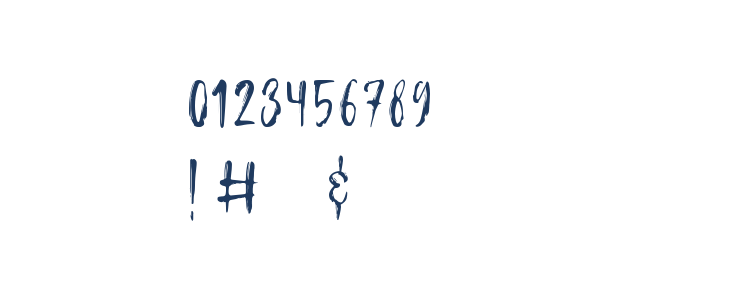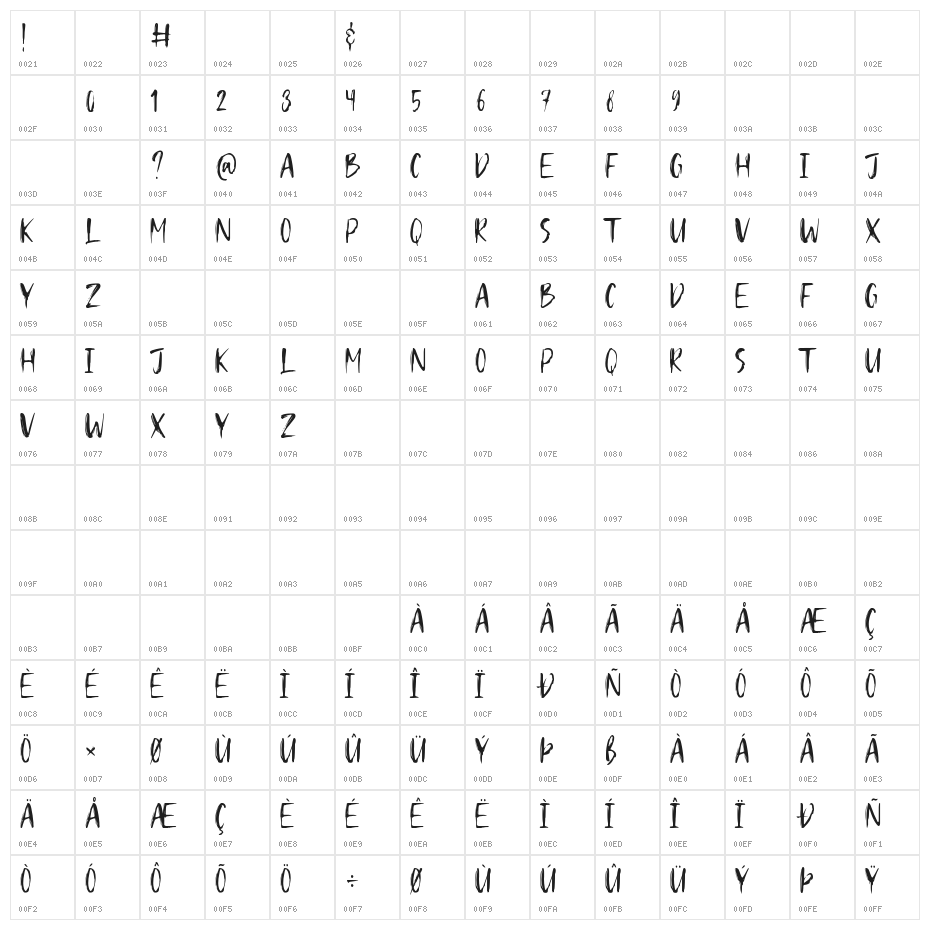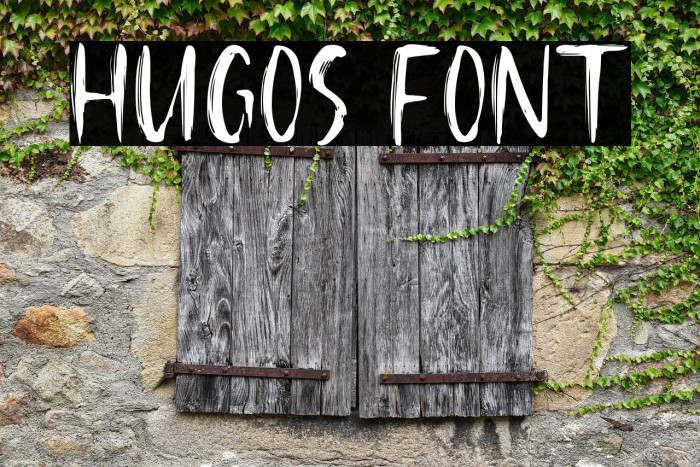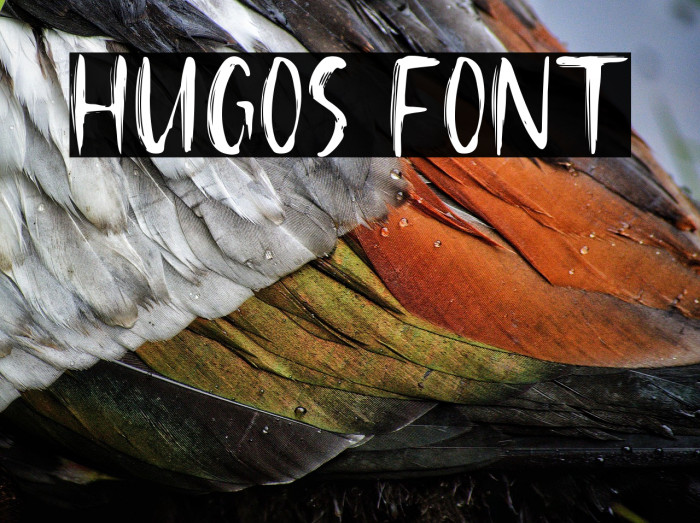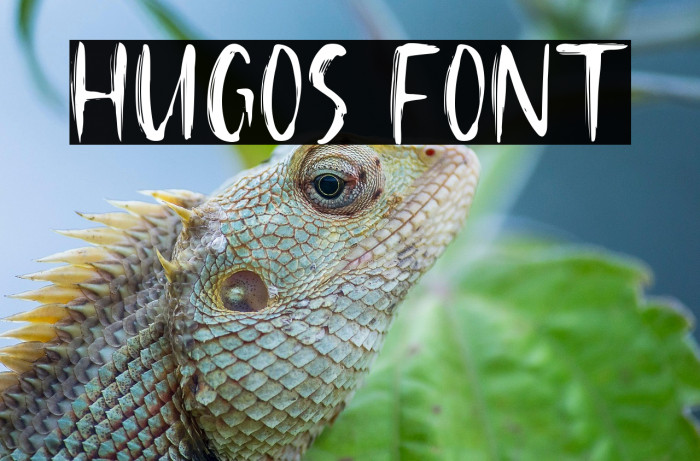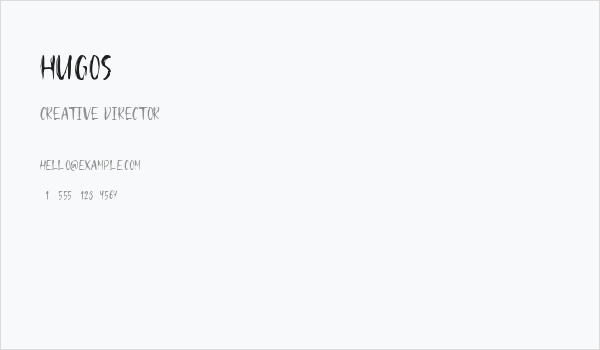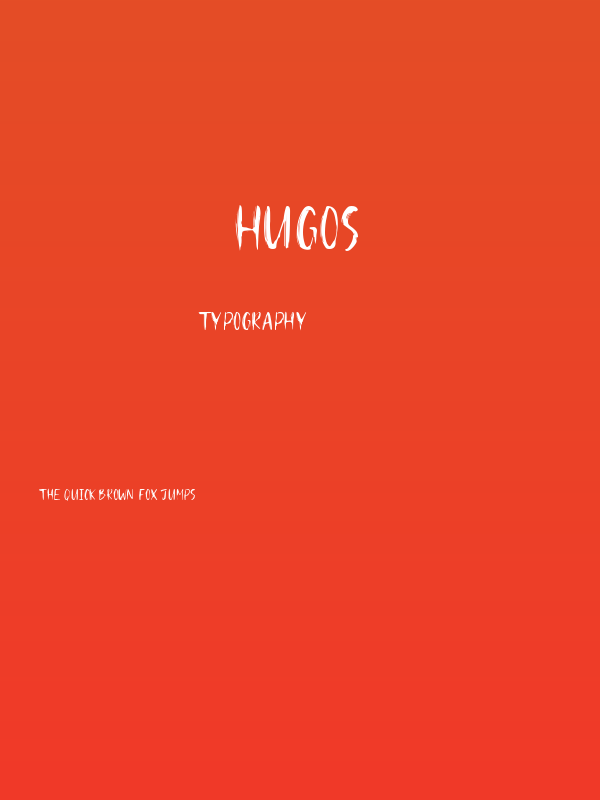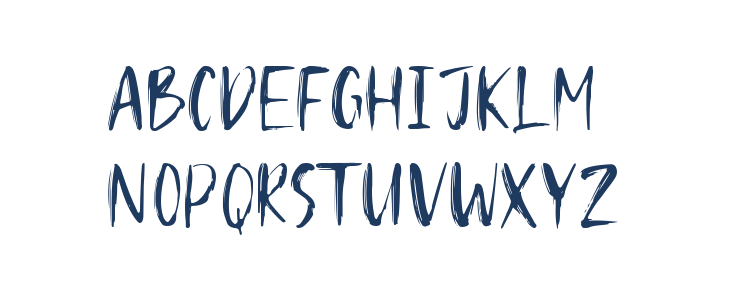
Hugos Font
Hugos Description
This font exhibits a bold and dynamic brush style, characterized by its expressive strokes and energetic appearance. The letters are crafted with a sense of movement, giving them a lively and artistic flair. The uppercase and lowercase letters maintain a consistent style, with each character displaying unique brush textures that add depth and personality. The numbers and special characters follow the same design principles, ensuring a cohesive look across all glyphs. This font is ideal for projects that require a touch of creativity and boldness, making it suitable for artistic and expressive designs.
| Overall Style | Artistic, Expressive |
| Proposed Projects | Ideal for posters, album covers, branding, and any creative projects that require a bold and artistic touch. |